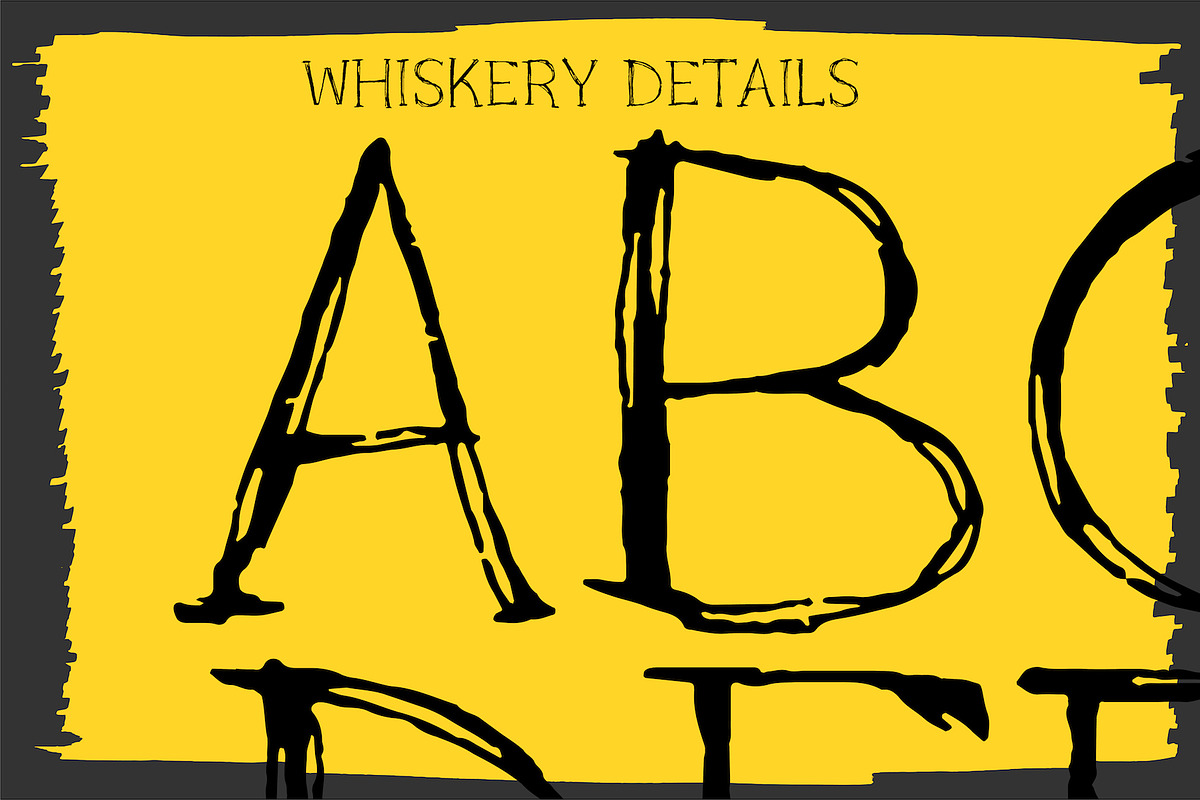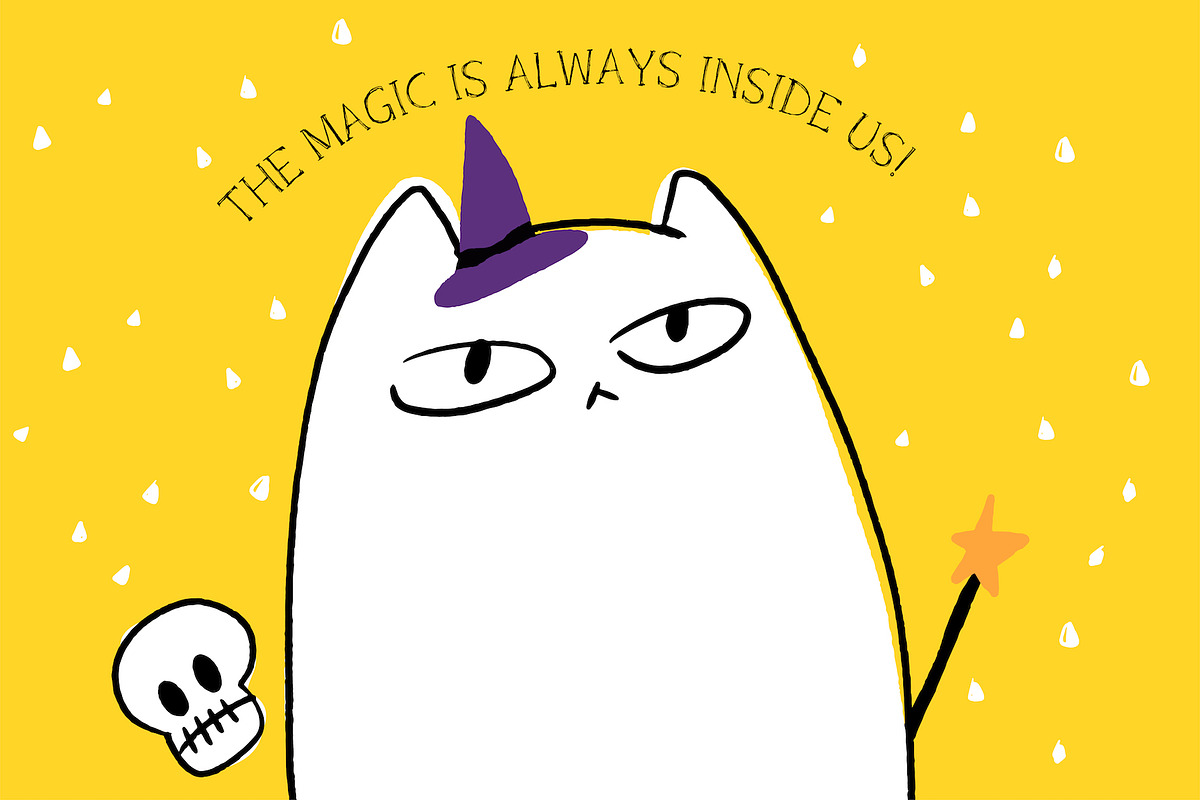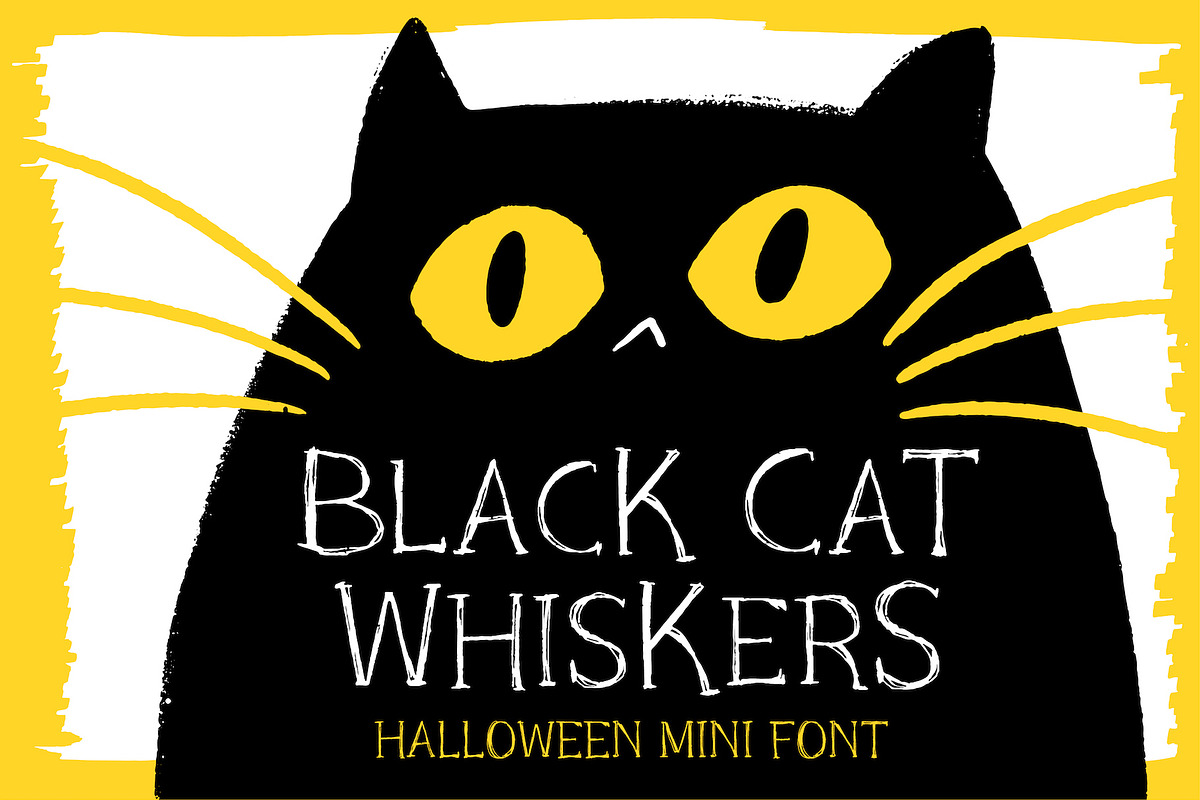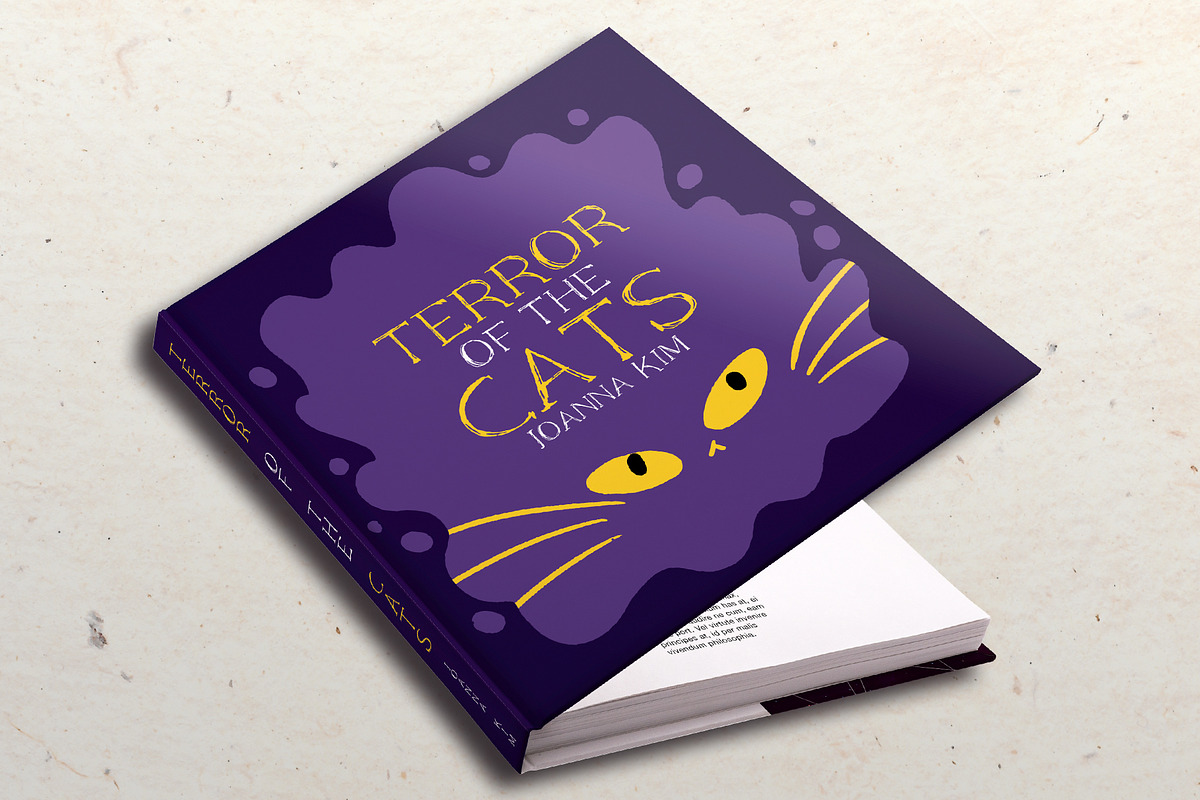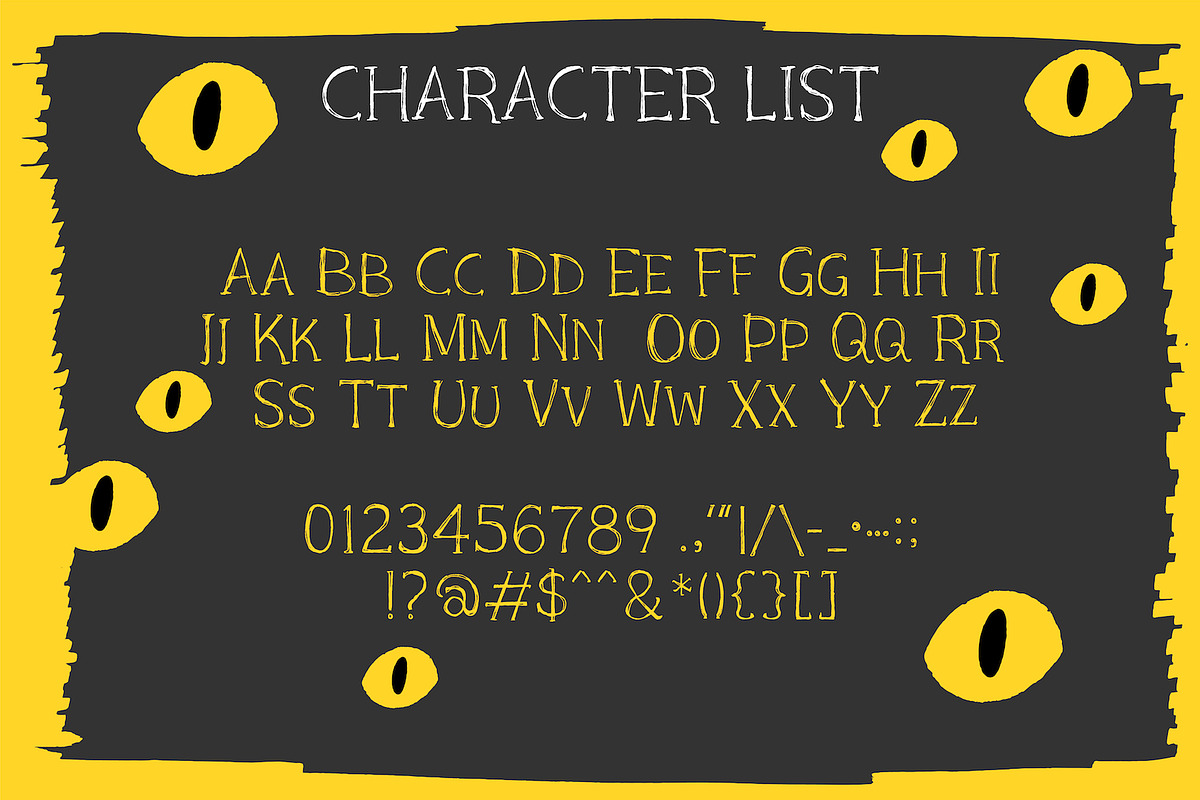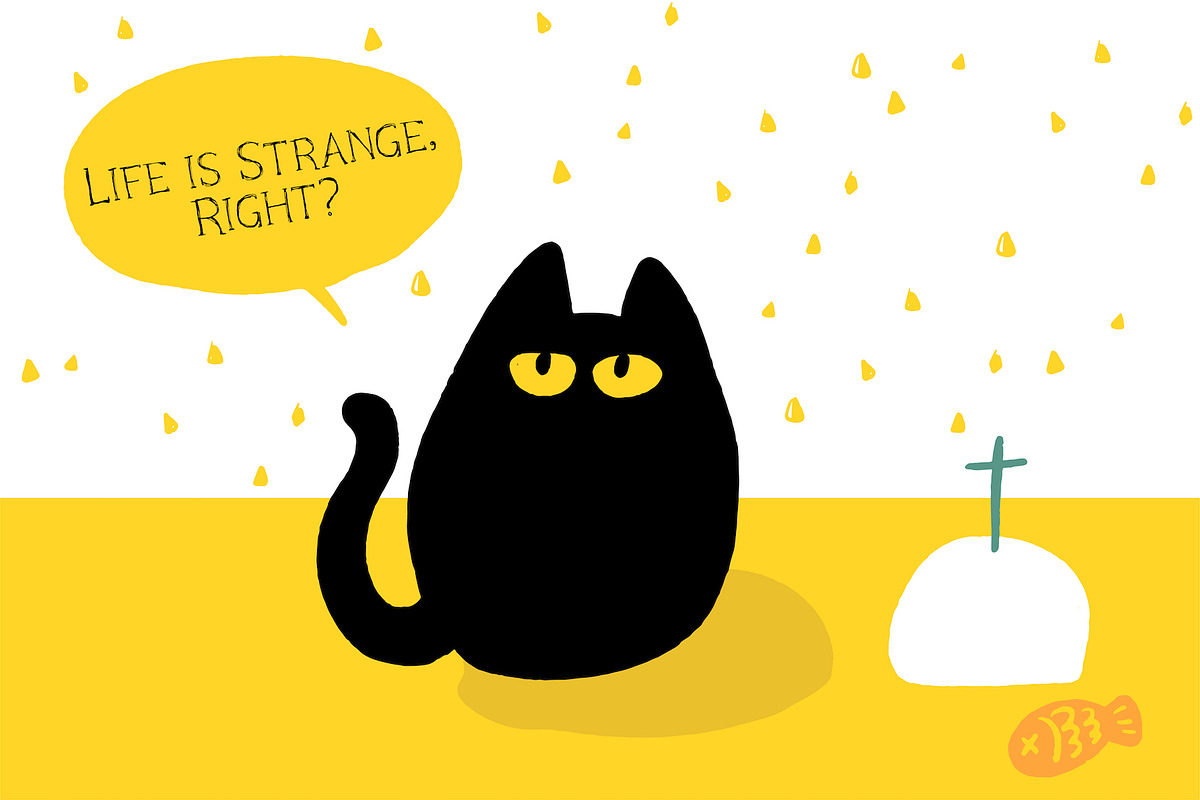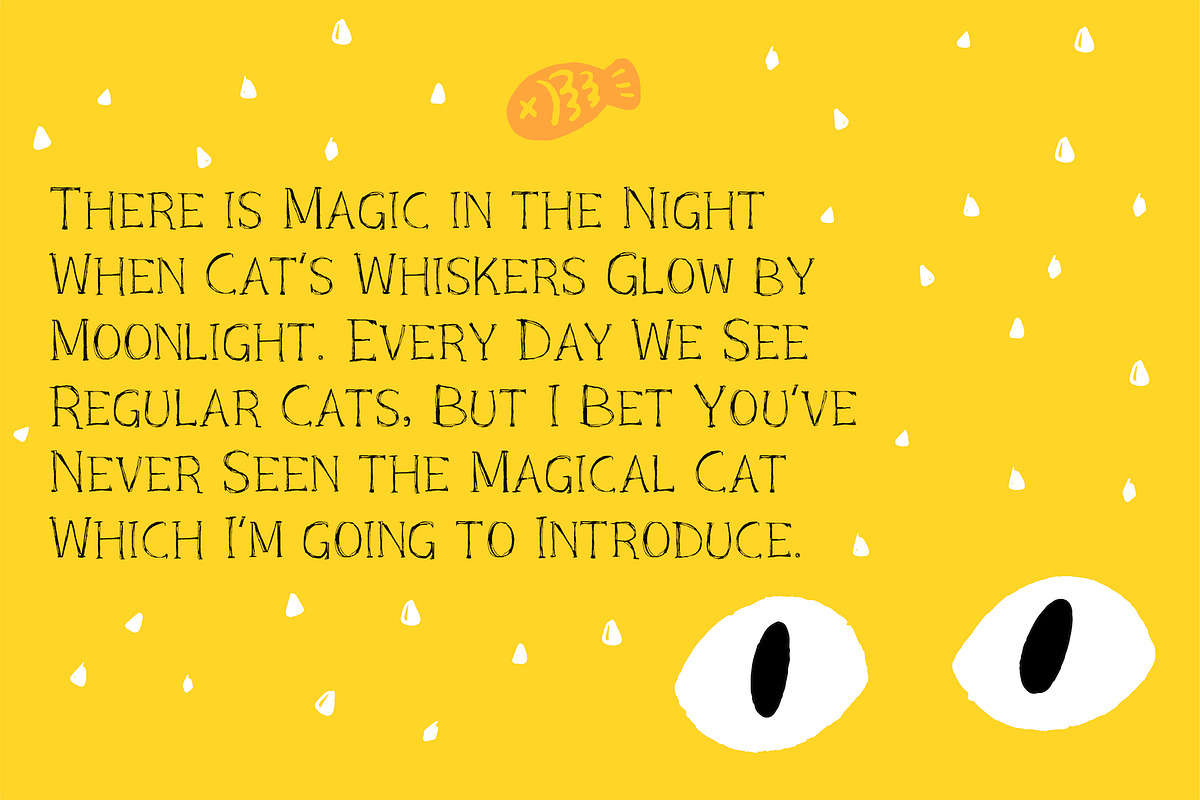
Black Cat Whiskers - Halloween Serif
Introducing spooky and quirky mini font, Black Cat Whiskers. It’s fun and modern Halloween serif, not too heavy or decorative. Fully hand-lettered to achieve very organic textures.
Black Cat Whiskers is including big and small capital letters and a few symbols. Combine letters to create typographic book covers, package, stationery, posters, social media project, t-shirt, mugs, logos, branding, and anything.